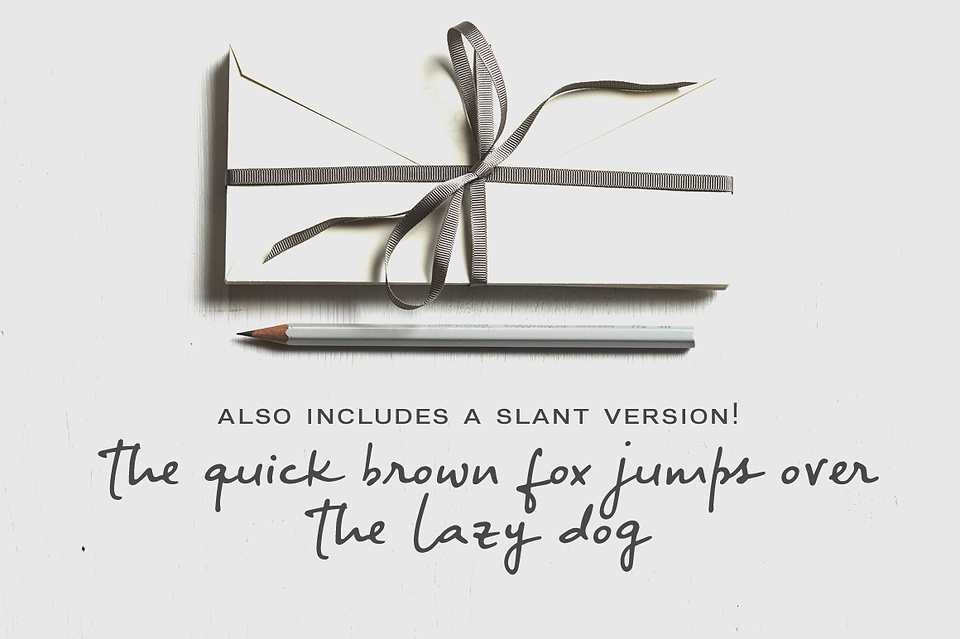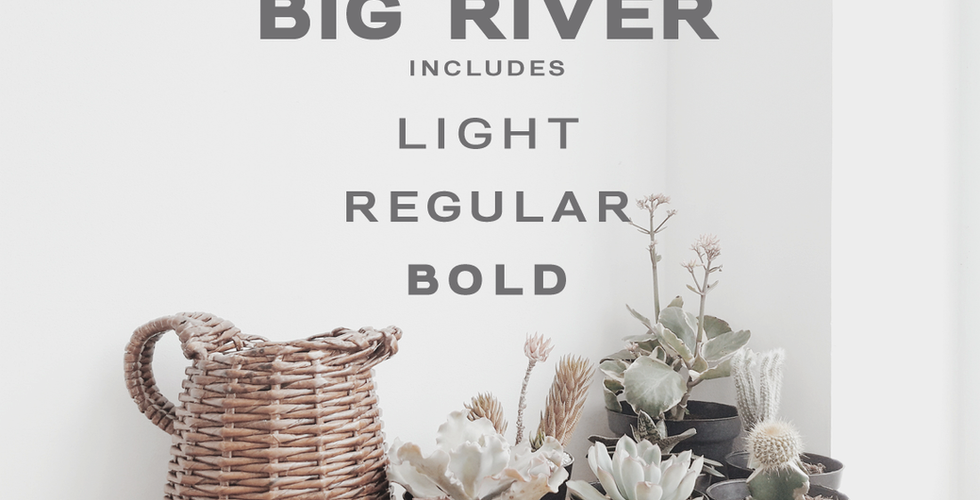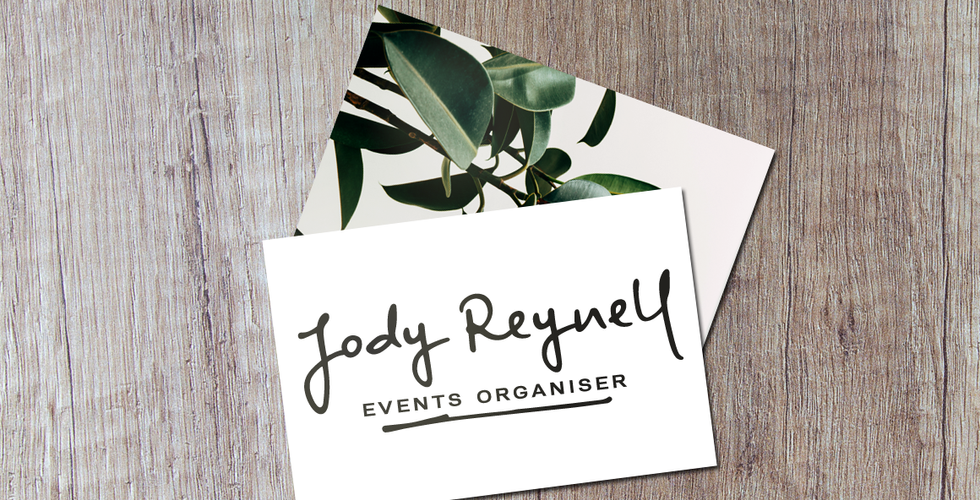
I would like to present to you Big River (been listening to a lot of Johnny Cash lately), my latest sans serif and handwritten font duo with lots of extras.
Big River includes:
A wide sans serif font in three weights (with caps and small caps);
A handwritten font with a regular and slant version, and bonus swashes to give your designs a more natural look.
Each font includes:
A-Z, a-z, 0-9, accents, punctuation and symbols
Contextual alternates (script)
Ligatures (script)
Big River
This font duo makes it so easy to achieve beautiful and eye-catching designs, and is perfect for both short and longer texts. It can be used for making postcards and notes, creating logotypes, social media posts, branding and packaging, etc. Check out some examples below: